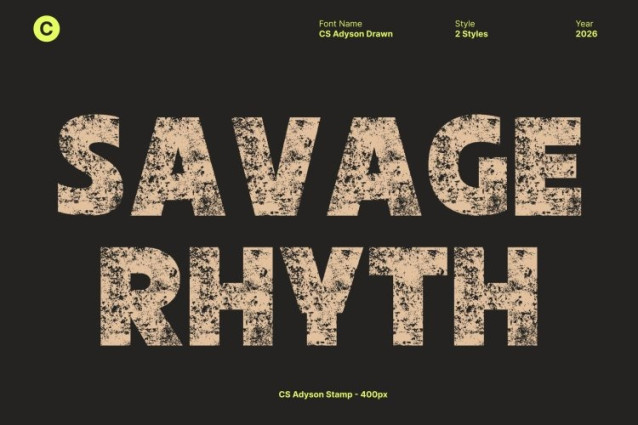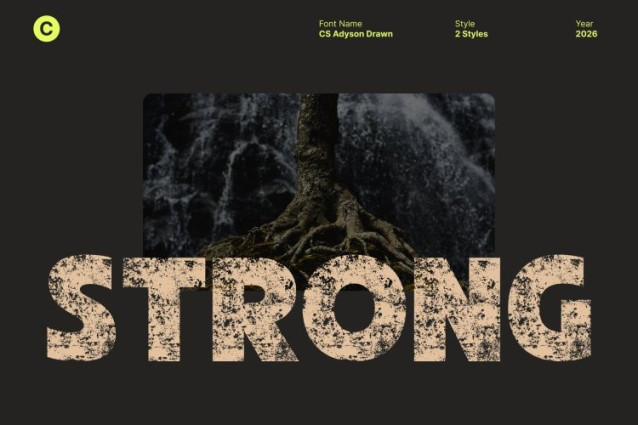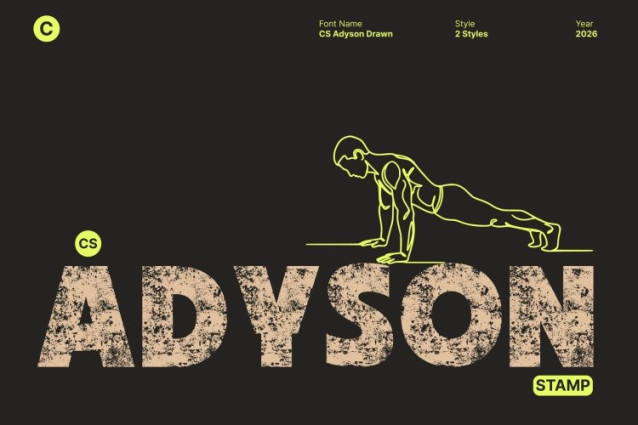
CS Adyson Stamp Font
CS Adyson Stamp Font This is a bold modern sans-serif font built on clean geometry and confident structure. Its solid letterforms deliver clarity and strength, while the added stamp effect introduces subtle texture and character. This combination creates a commanding presence that feels professional yet visually distinctive.
Corporate Clarity with Vintage Stamp Character
Carefully constructed with proportional spacing and clear forms, this font maintains excellent readability across print and digital media. The stamped texture adds an old-print nuance and artistic depth, softening the strict modernity without reducing legibility. The result is a font that feels authoritative, trustworthy, and rich in visual character.
Reliable Design with Timeless Appeal
This font projects stability and confidence through its bold weight and structured simplicity. The vintage-inspired stamp finish brings a sense of heritage and authenticity, making the font suitable for brands that want to appear established, dependable, and forward-thinking at the same time.
Versatile for Modern Branding and Media
Perfect for corporate branding, logos, packaging, editorial layouts, UI elements, and promotional materials, this font adapts seamlessly across platforms. Its bold modern foundation combined with textured vintage detail makes it an effective choice for designers seeking a strong sans-serif font with lasting impact and expressive depth.